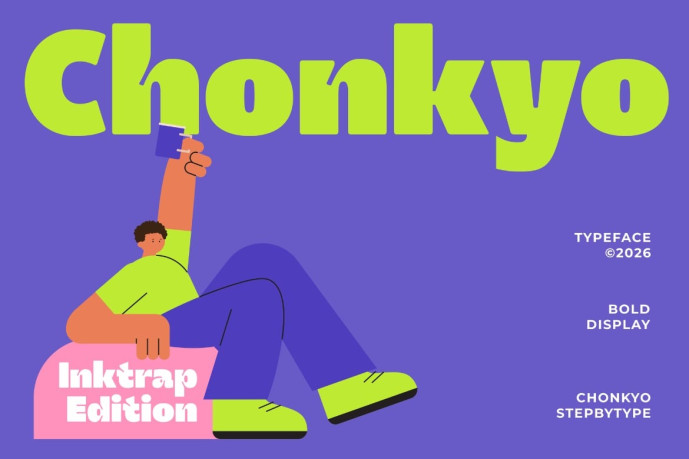
Chonkyo Inktrap Font
Chonkyo Inktrap Edition is a bold display typeface that combines chunky geometric forms with professional ink traps, creating a distinctive look that is both playful and highly functional. While the oversized shapes deliver a friendly and energetic personality, the carefully crafted ink traps add visual character, improve clarity at smaller sizes, and give the typeface a unique contemporary appeal.
Designed for modern branding, Chonkyo Inktrap Edition excels in logos, packaging, posters, editorial headlines, and digital content where bold typography needs to leave a lasting impression. Its clean structure and expressive details make it equally suitable for playful consumer brands and sophisticated creative identities.
Whether you’re building a food brand, children’s product, lifestyle campaign, tech startup, or eye-catching social media graphics, Chonkyo Inktrap Edition offers the perfect balance between fun, readability, and modern design.